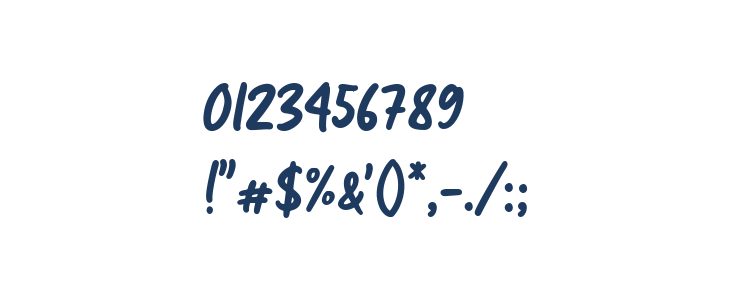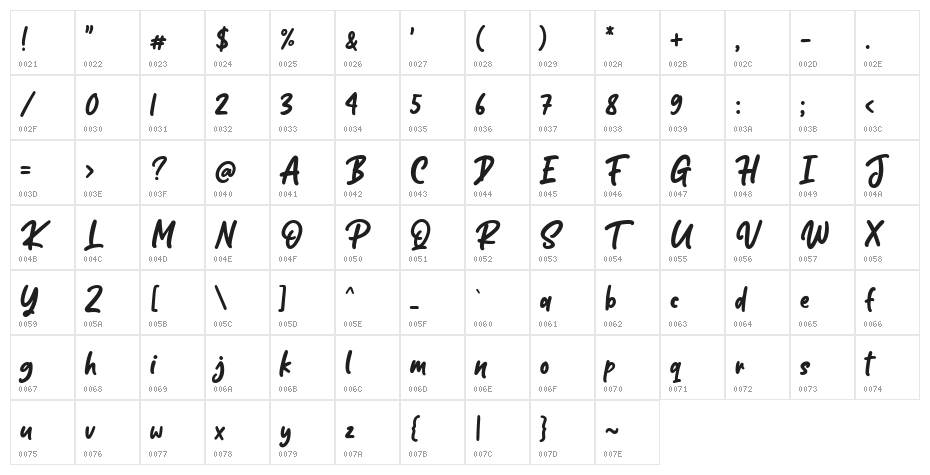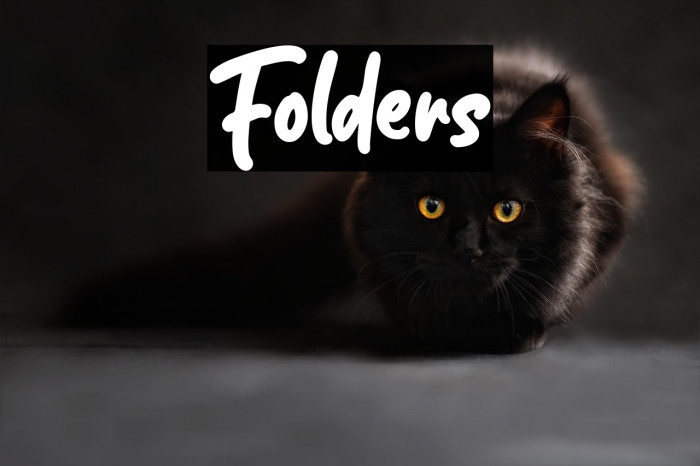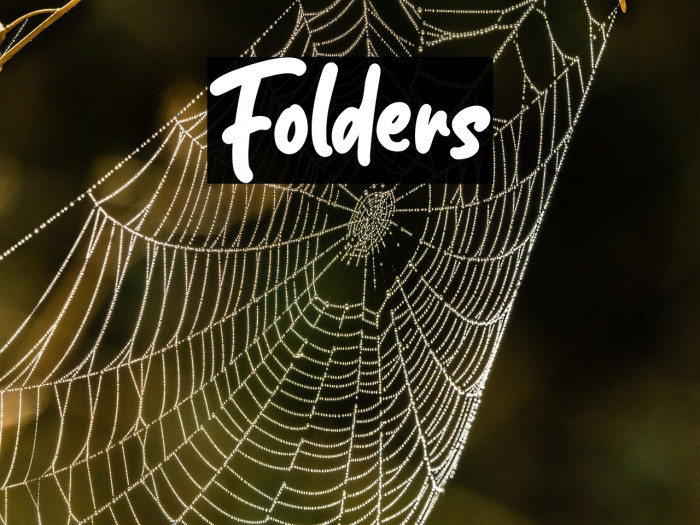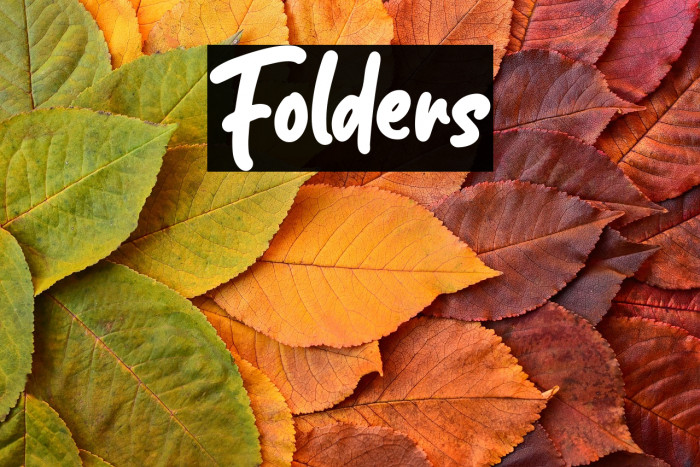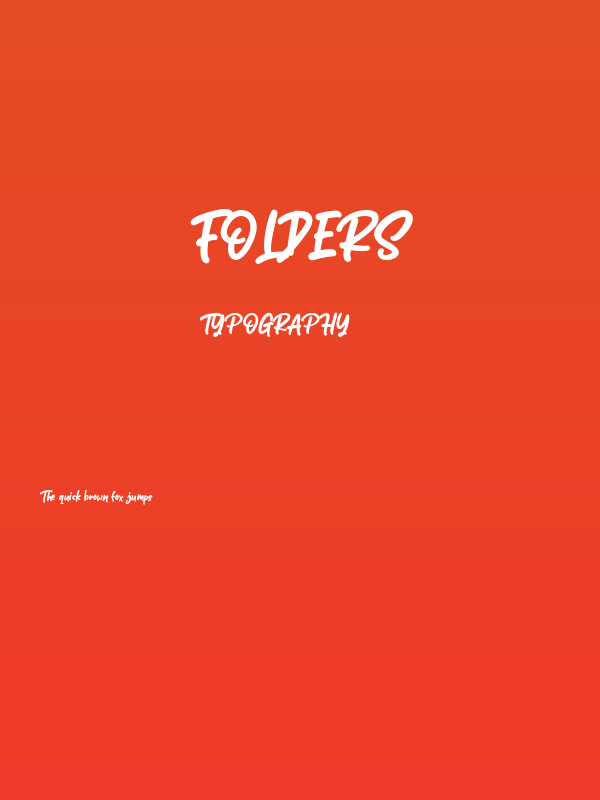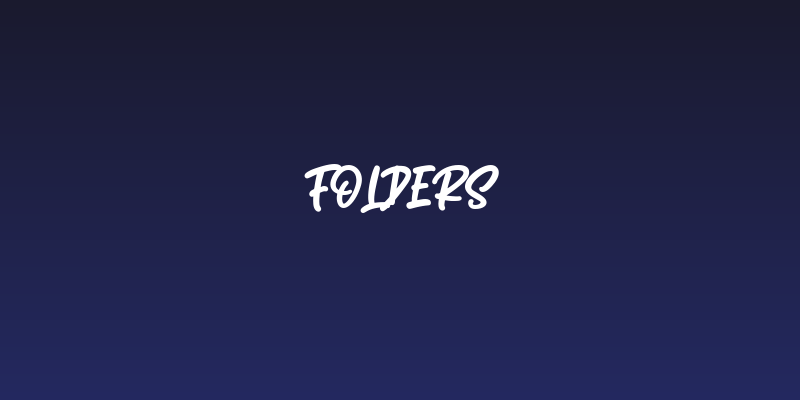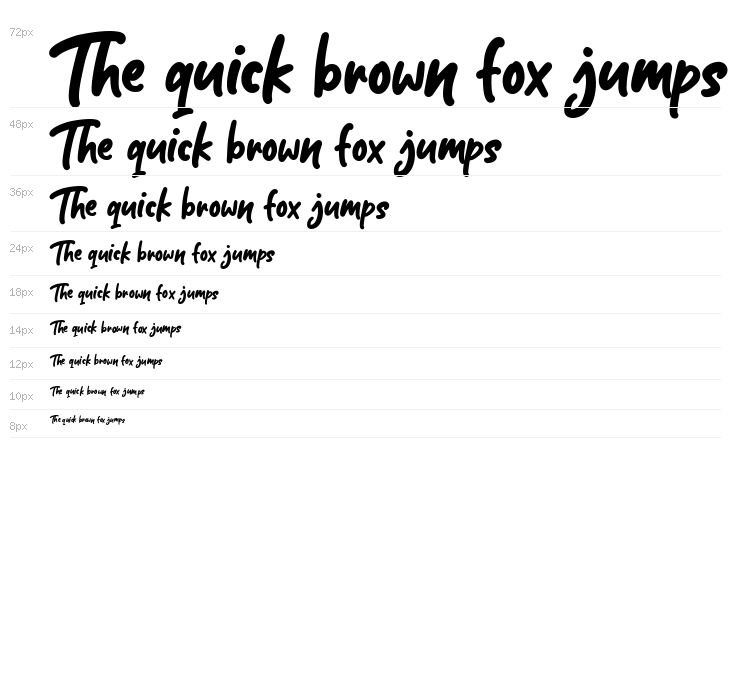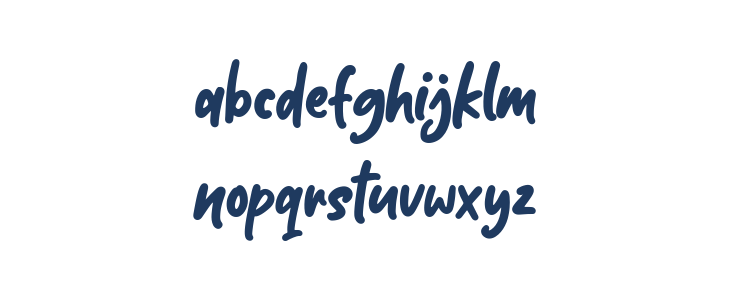
Folders Font
Folders Description
This font features a bold and expressive handwritten style, characterized by its fluid and dynamic strokes. The letters are slightly slanted, giving a sense of movement and energy. The uppercase letters are bold and prominent, while the lowercase letters maintain a consistent flow, enhancing readability. The numbers and special characters are crafted with the same attention to detail, ensuring a cohesive look across all characters. The font's playful yet sophisticated appearance makes it suitable for a variety of creative projects.
| Proposed Projects | Ideal for branding, packaging, posters, and social media graphics where a personal touch is desired. |